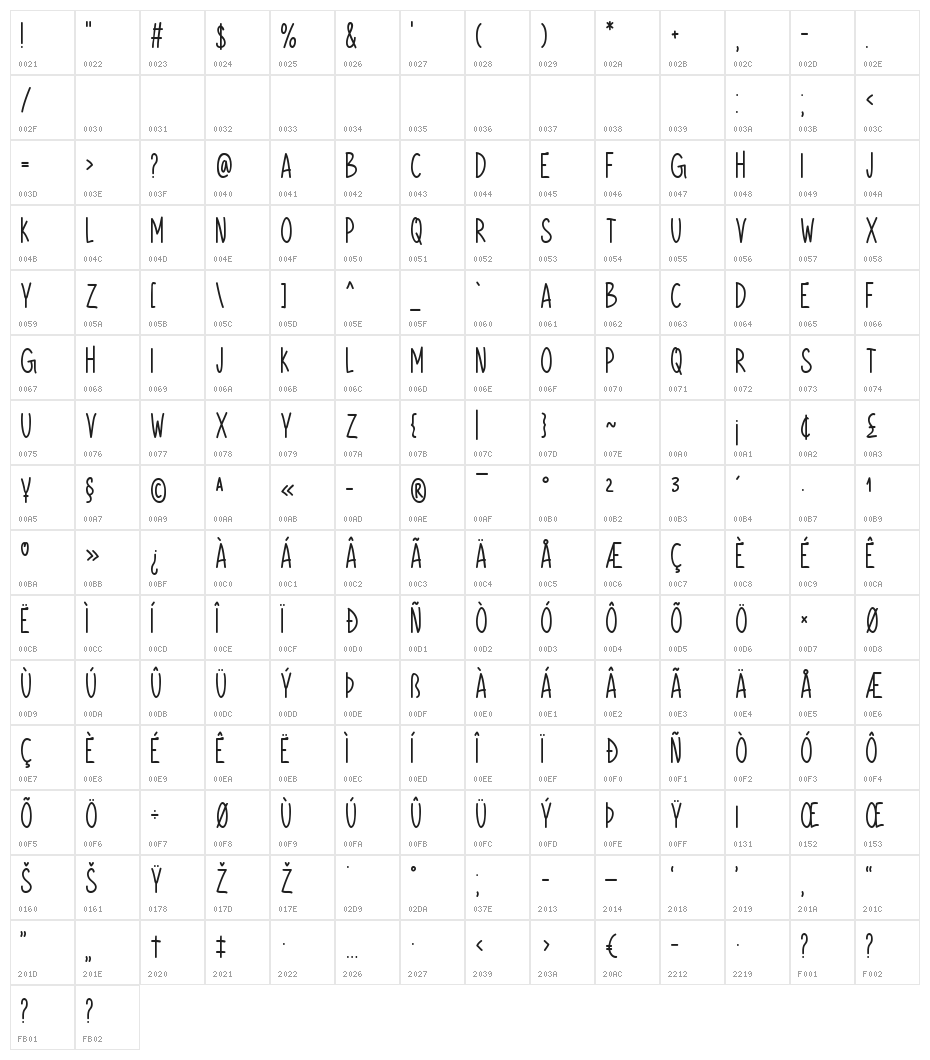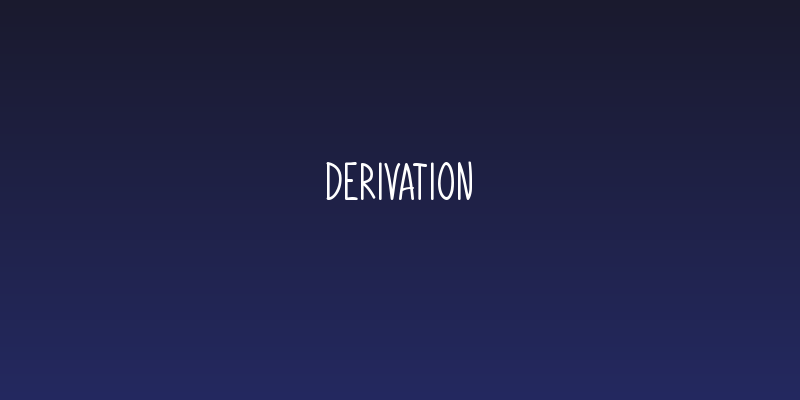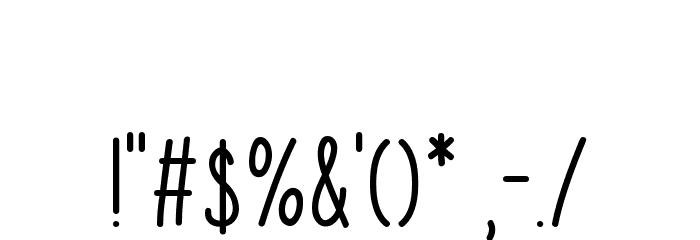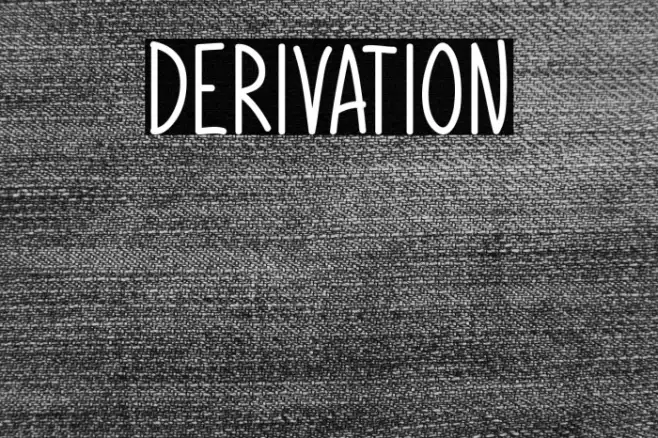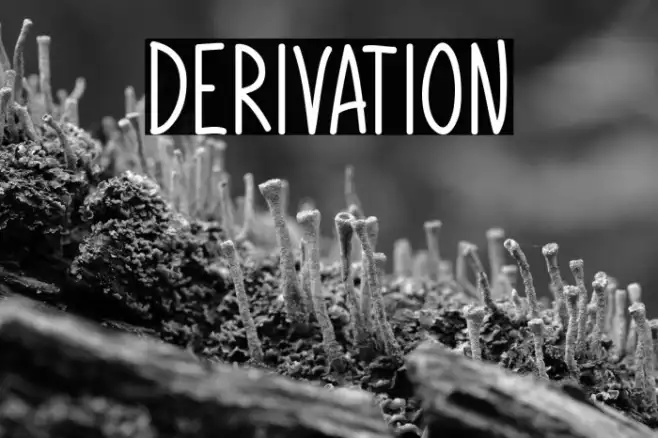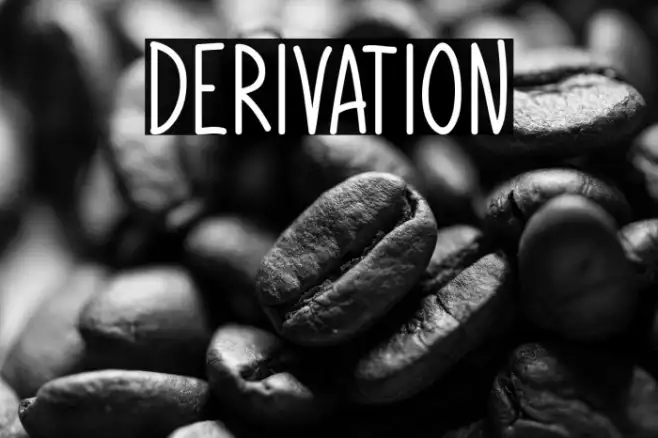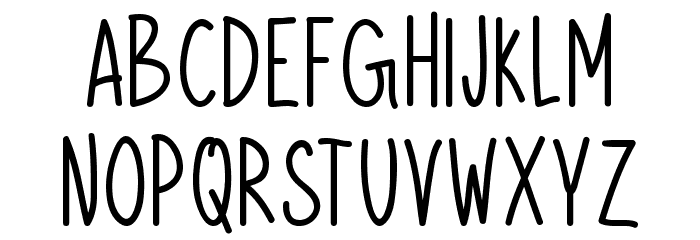
Derivation Font
Derivation Description
This font features a playful and casual handwritten style, characterized by its tall, narrow letterforms and slightly irregular strokes. The uppercase and lowercase letters maintain a consistent height, giving it a uniform appearance. The strokes are smooth and rounded, adding a friendly and approachable feel. The spacing between characters is relatively tight, which enhances its compact look. This font includes a full set of uppercase and lowercase letters, numbers, and a variety of special characters, making it versatile for different uses. Its informal style makes it suitable for projects that aim to convey a sense of fun and creativity.
| Use Case | Logos, Headlines, Informal Text |
| Proposed Projects | Ideal for greeting cards, children's books, playful branding, and casual invitations. |